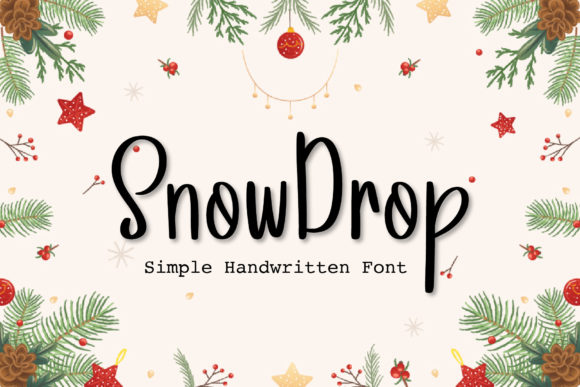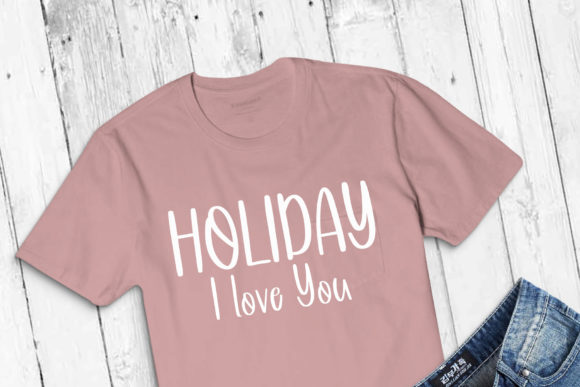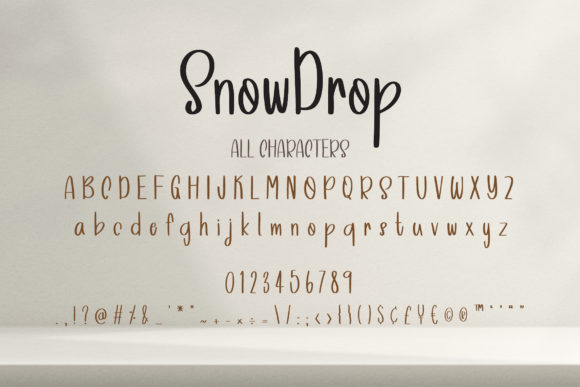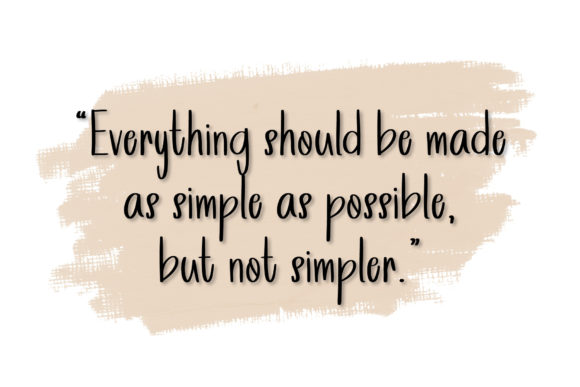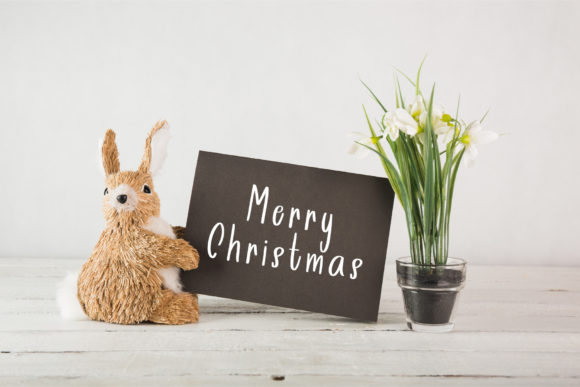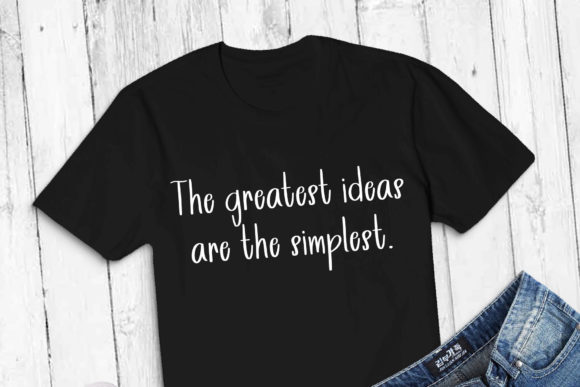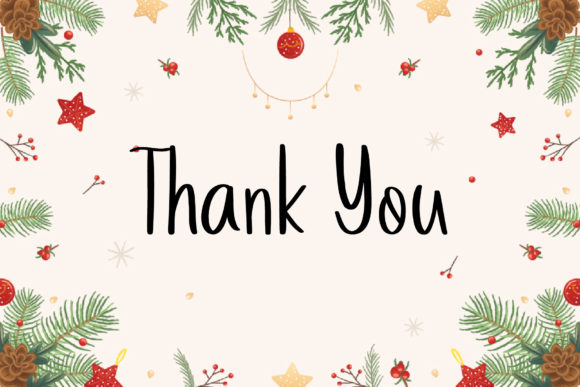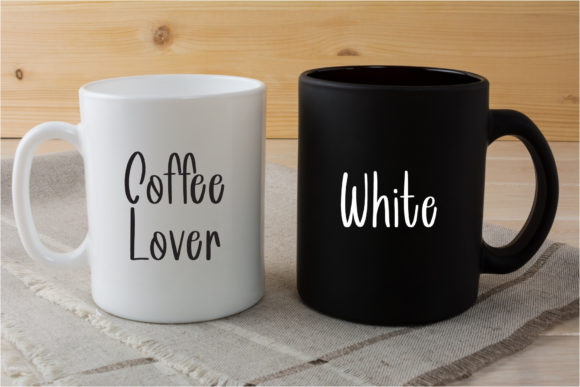
Snowdrop Font
About Snowdrop Font
Snowdrop is a friendly handwritten font. Playful and a little bit quirky, this font is the perfect fit for your social media posts, posters, cards and cute greeting cards.